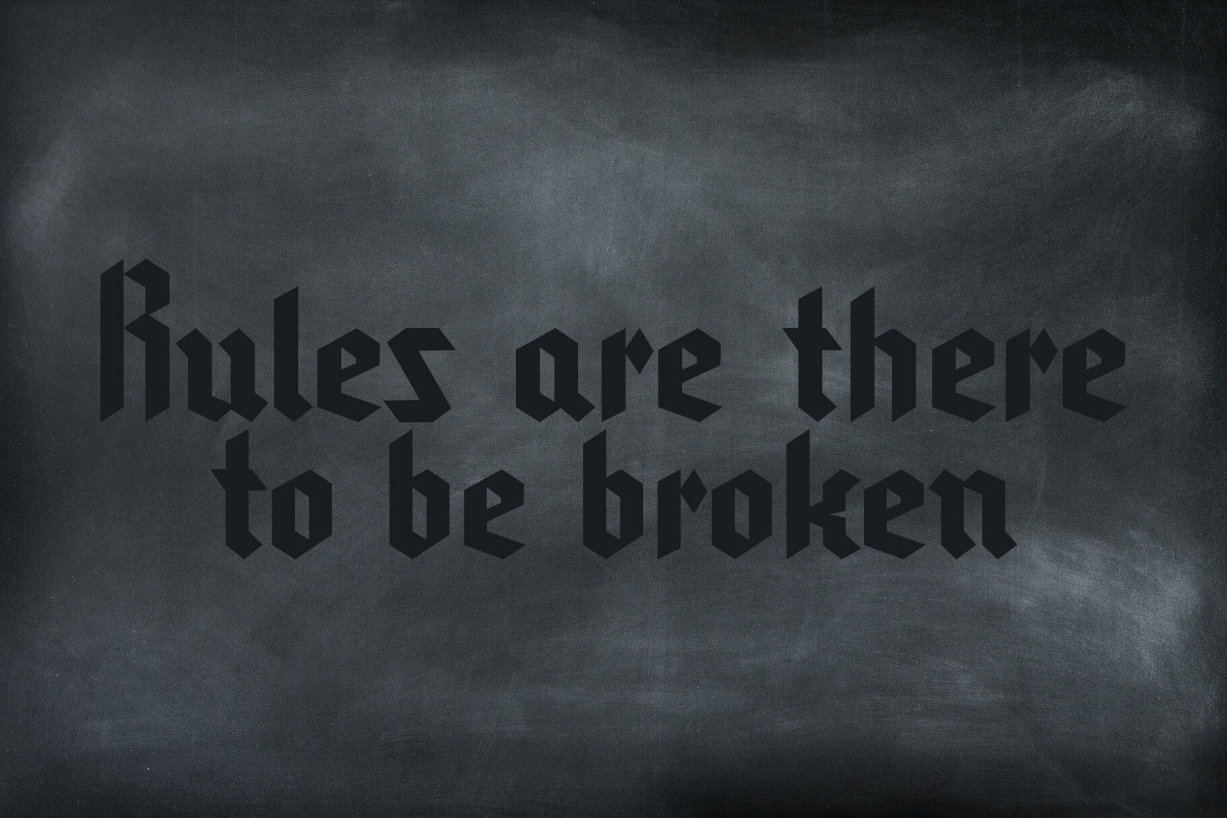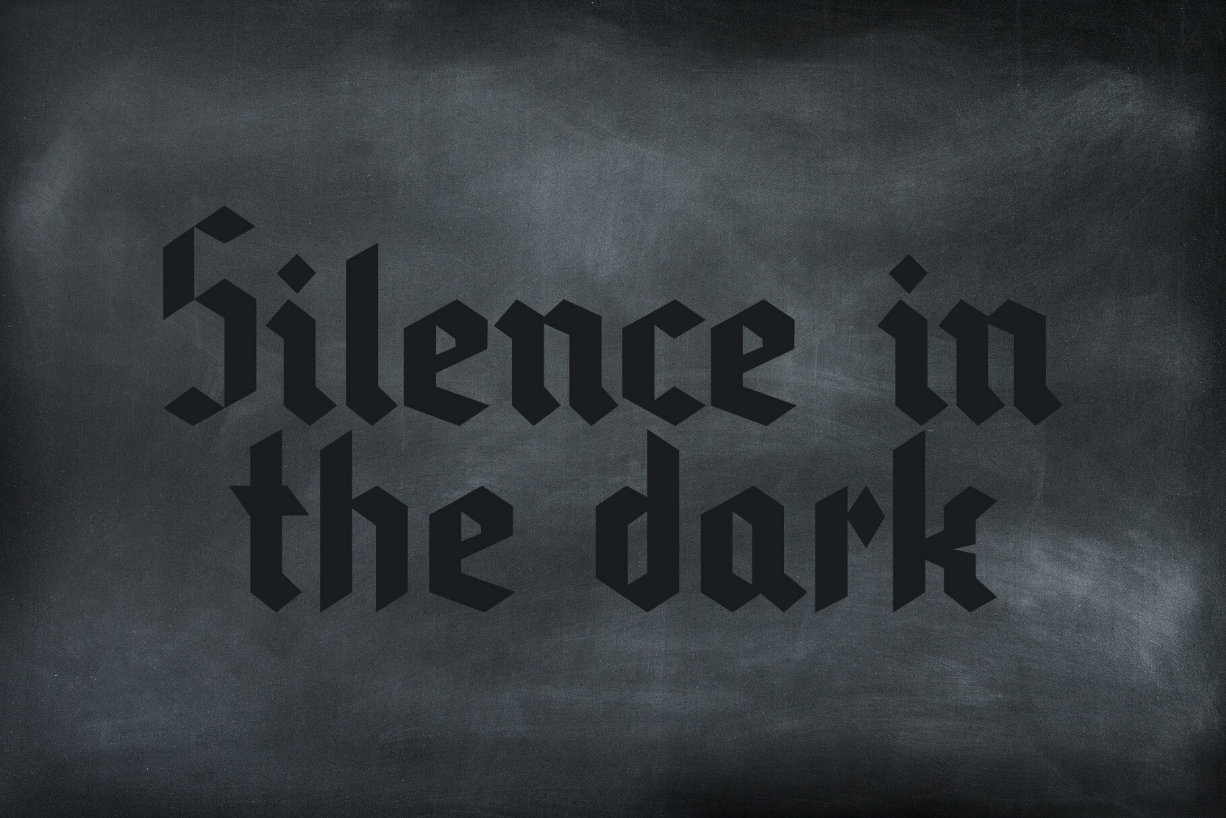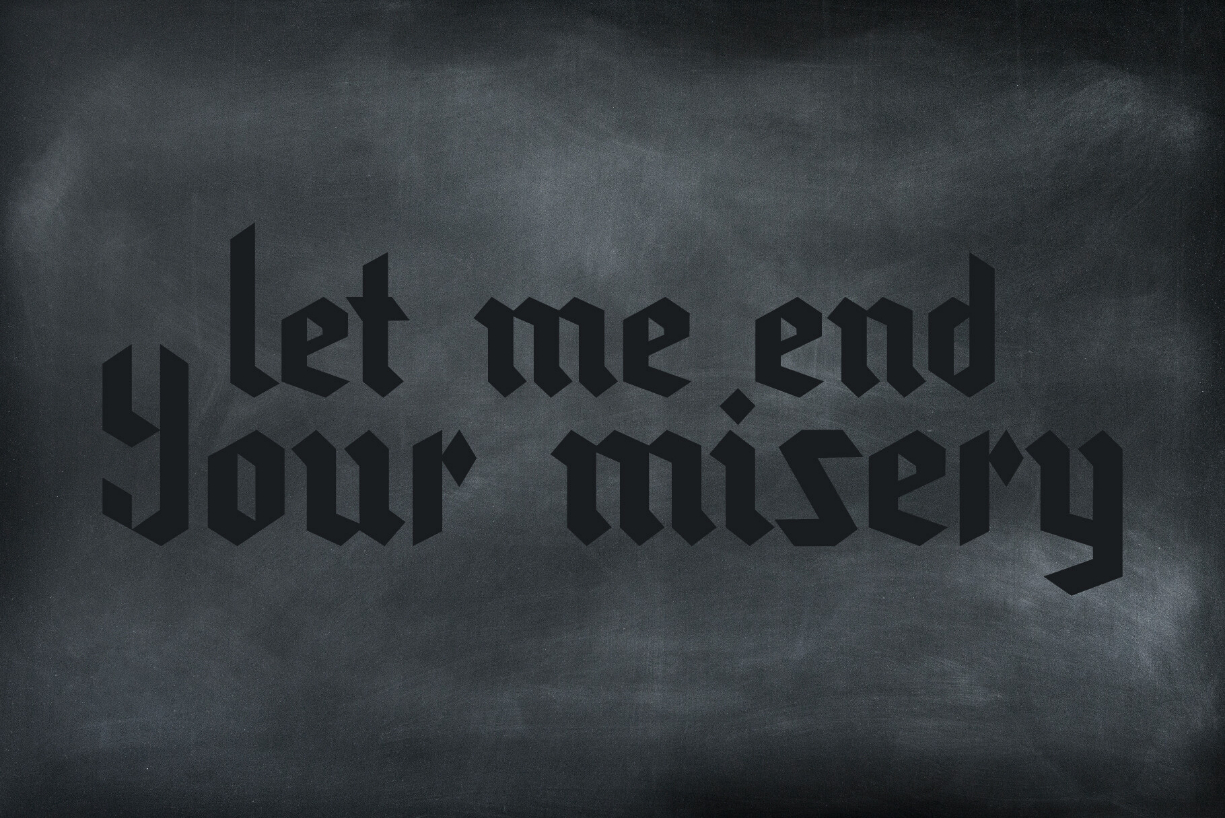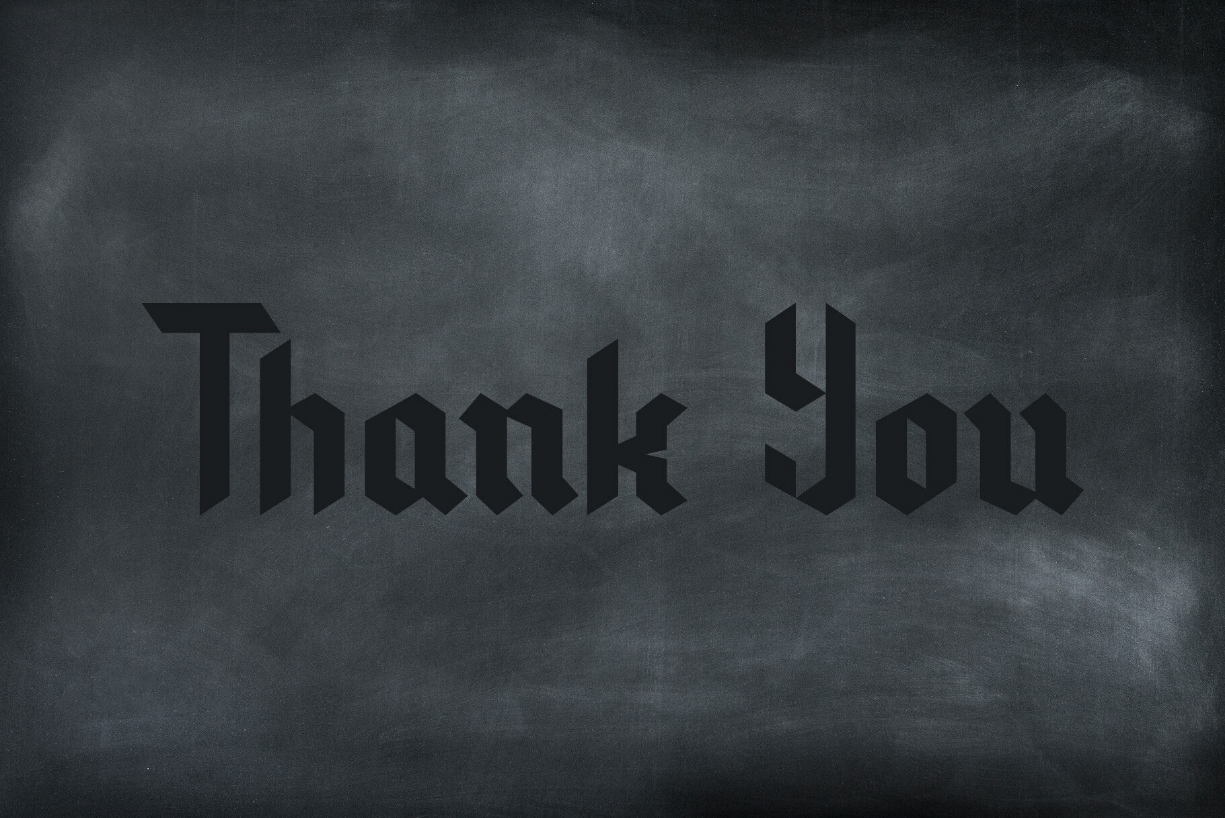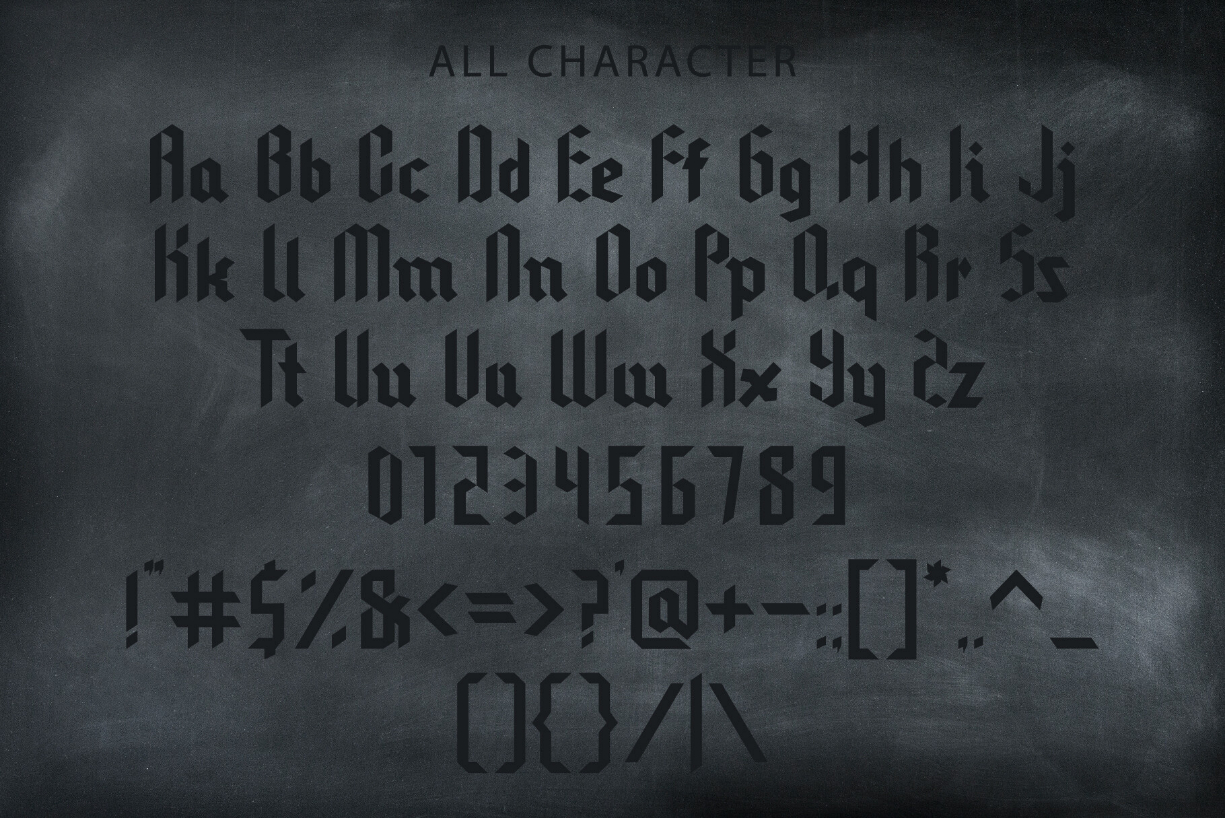
Shining Jump Font
About Shining Jump Font
Shining Jump is a stylish and bold black letter font. Shining Jump offers beautiful typographic harmony for a diversity of design projects, including logos and branding, social media posts, advertisements and product designs.